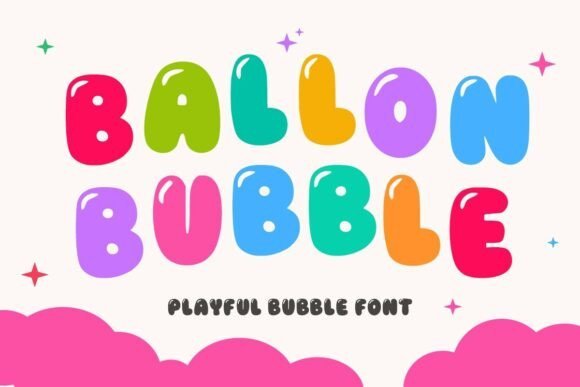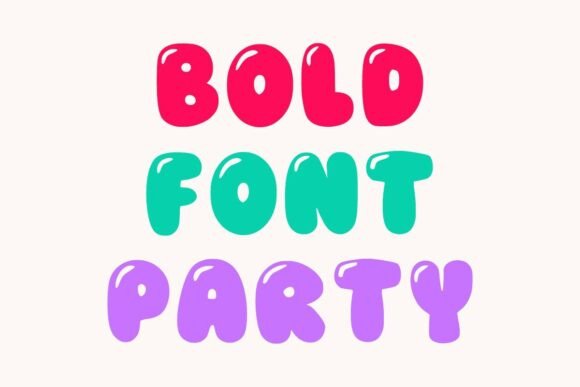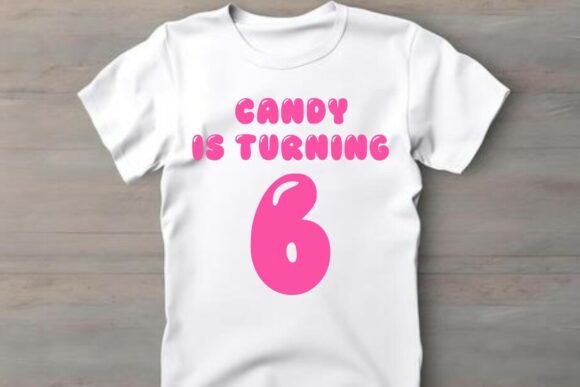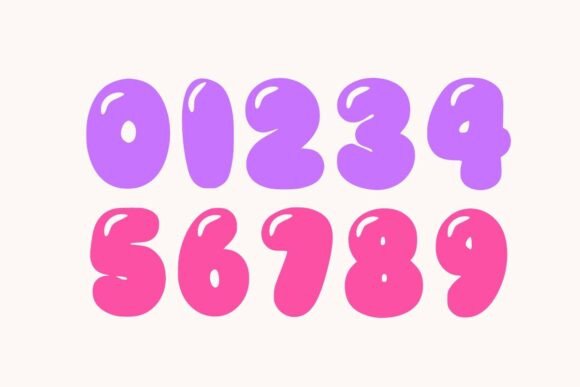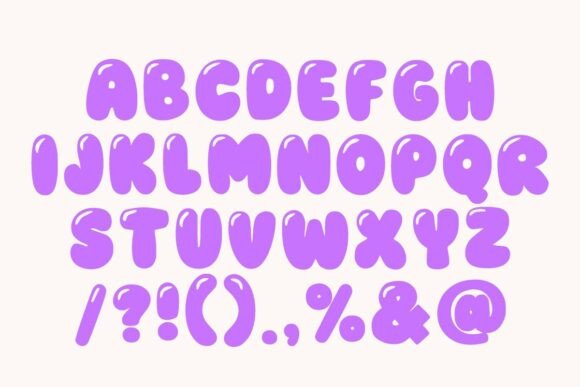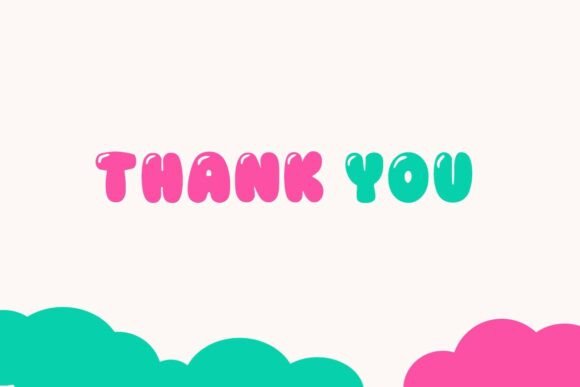
Pop of Personality: Unleashing the Joy of Balloon Bubble Font
Have you ever stumbled upon a font that instantly sparks your imagination and sets your creative juices flowing? For many designers, that moment comes when they lay eyes on the vibrant Balloon Bubble Font. Its playful, exuberant curves are a perfect blend of whimsy and sophistication, making it an instant favorite among creatives.
As a designer, you’re always on the lookout for that special font that adds a unique touch to your projects. The Balloon Bubble Font is more than just a pretty face – it’s a powerful tool that injects energy and personality into your work. Whether you’re crafting a children’s book, designing a YouTube thumbnail, or creating a spirited brand identity, this font is sure to leave a lasting impression.
Key Features of Balloon Bubble Font
- Font Family: A unique, hand-drawn font with a whimsical feel, perfect for creating playful and eye-catching designs.
- Character Set: Includes a comprehensive set of characters, including uppercase and lowercase letters, numbers, punctuation marks, and special characters.
- Size: Available in various font sizes, ranging from 8pt to 72pt, allowing for flexibility in design applications.
- Unique Characteristics: The font’s distinctive balloon-like shapes and bubbly texture add a touch of personality to any design, making it perfect for creative projects, such as children’s books, party invitations, and social media graphics.
Balloon Bubble Font Review
Overall, I think the Balloon Bubble Font is a visually appealing addition to any design project. ✨ It’s playful, fun, and captures the whimsical feel of balloons and bubbles. I love how the font’s rounded edges and soft curves create a sense of friendliness and approachability.
Here are some specific things that work well:
- ✨ The font’s versatility: It can be used for a wide range of applications, from children’s party invitations to social media graphics.
- ✨ The font’s customizability: It’s available in various weights and sizes, making it easy to adjust to different design needs.
- ✨ The font’s visual interest: The rounded shapes and bubble-like elements create a unique and eye-catching visual effect.
However, I do have some concerns:
- ⚠️ The font’s legibility: While the font is visually appealing, it can be difficult to read at smaller sizes or in certain contexts.
- ⚠️ The font’s lack of subtlety: The font’s playful nature can sometimes come across as overly flashy or attention-seeking.
Overall, I think the Balloon Bubble Font is a great choice for designers who want to add a touch of whimsy and fun to their projects. While it may have some limitations, its unique visual appeal and versatility make it a valuable addition to any design toolbox.
Use the Balloon Bubble Font for:
1. Creating playful and whimsical designs.
2. Adding visual interest to text-heavy designs.
3. Designing children’s party invitations and decorations.
4. Creating social media graphics and ads.
Remember to experiment with different font sizes, colors, and styles to get the most out of the Balloon Bubble Font.
Alternatives to Balloon Bubble Font
The Balloon Bubble Font is a playful and whimsical font often used for titles and headings. However, it may not be suitable for all designs. Here are some alternatives:
Pacifico is a beautiful, modern script font that works well for titles, headings, and body text. It’s ideal for designs that require a touch of elegance and sophistication. Compared to Balloon Bubble Font, Pacifico is more refined and less playful, making it suitable for a wider range of designs.
Great Vibes is a fun, cursive font that’s perfect for designs that need a lively and energetic feel. It’s great for titles, headings, and quotes. Compared to Balloon Bubble Font, Great Vibes is more energetic and playful, but with a more cohesive and modern design.
Dancing Script is a beautiful, elegant script font that’s perfect for titles, headings, and body text. It’s ideal for designs that require a touch of sophistication and refinement. Compared to Balloon Bubble Font, Dancing Script is more elegant and less playful, making it suitable for more formal designs.
Q: Can I customize the Balloon Bubble Font to fit my specific design needs?